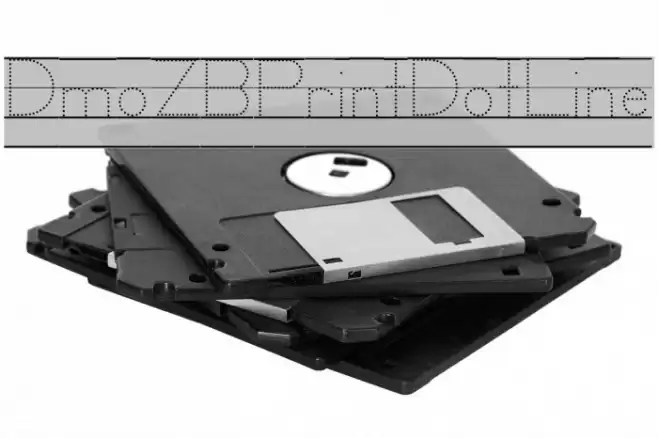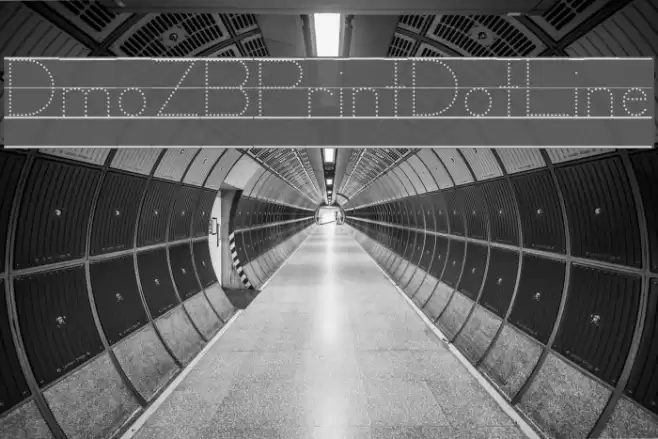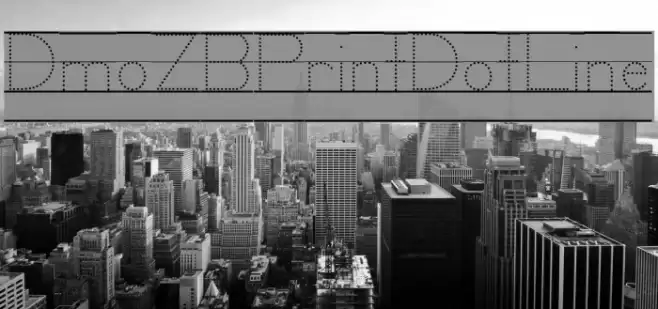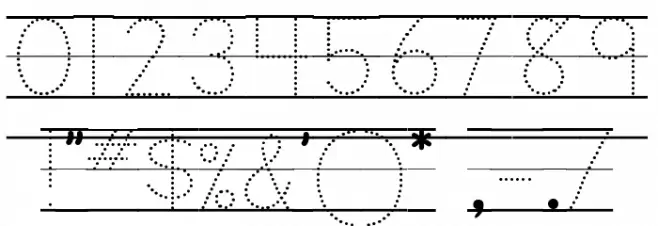
DmoZBPrintDotLine Font
DmoZBPrintDotLine Description
This font features a unique dotted line style, where each character is formed by a series of evenly spaced dots. The uppercase and lowercase letters maintain a consistent geometric form, creating a modern and minimalist appearance. The numerals and special characters follow the same dotted pattern, ensuring uniformity across all glyphs. This design is particularly eye-catching and can add a playful yet structured element to any project. The font's simplicity and clarity make it suitable for a variety of creative applications.
A modern, dotted line font with geometric precision from Uncategorized fonts.
- Proposed Projects: Ideal for educational materials, children's books, playful branding, and creative posters.
- Use Case: Headlines, Logos, Creative projects